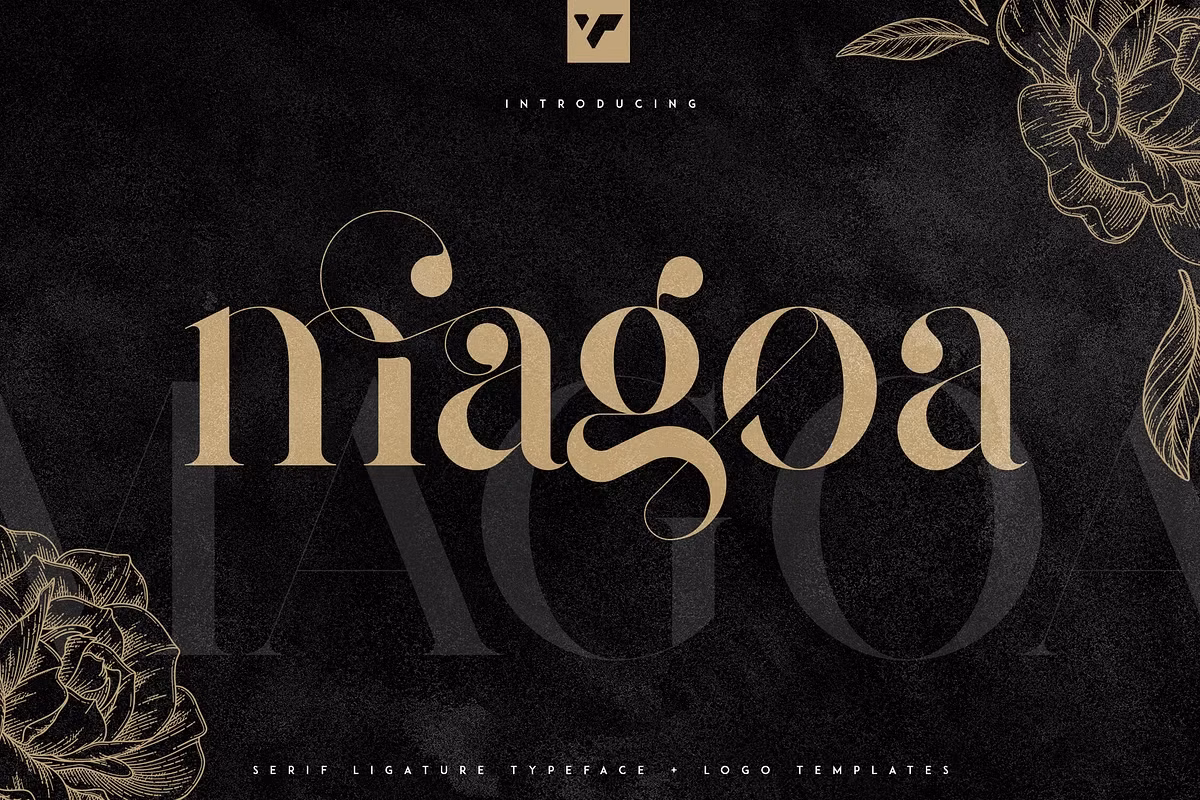
Magoa - Serif Ligature Typeface Free Download
Magoa - Serif Ligature Typeface Free Download is a sophisticated and elegant font designed to bring a luxurious and timeless feel to any creative project. Whether you're working on high-end branding, editorial layouts, or wedding invitations, Magoa stands out with its refined ligatures and unique serif style that blends modern aesthetics with classical charm. This font is ideal for designers looking to add a touch of elegance to their work.
The beauty of Magoa - Serif Ligature Typeface Free Download lies in its versatility and balance, making it a great choice for both print and digital designs. It includes a full character set, stylish alternates, and well-crafted ligatures that enhance readability while maintaining a chic visual identity. Whether you're creating logos, packaging, or stylish quotes for social media, Magoa delivers a professional and polished look.